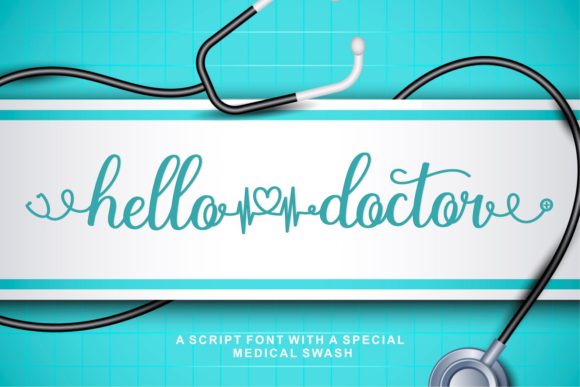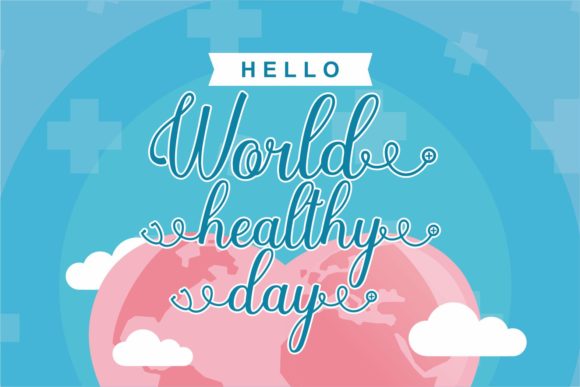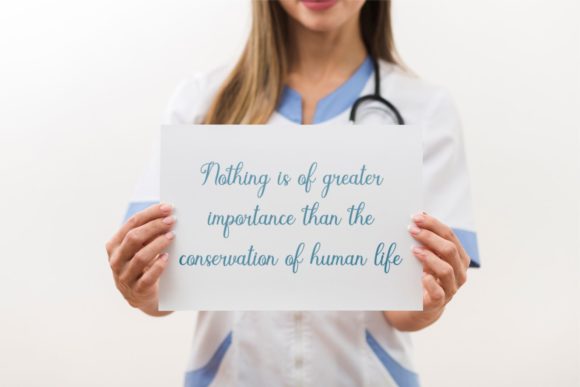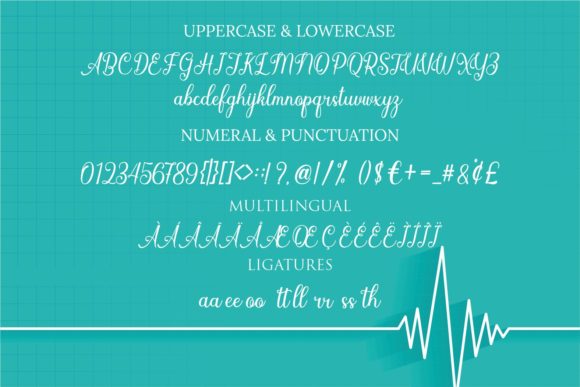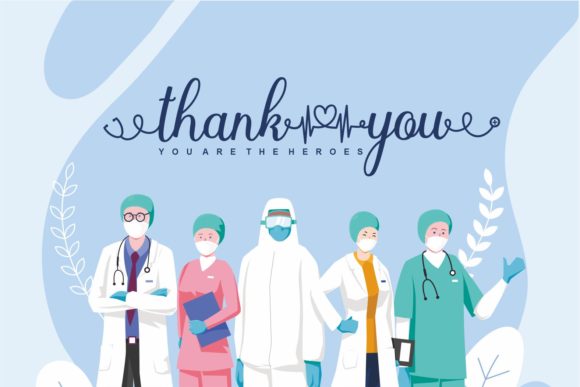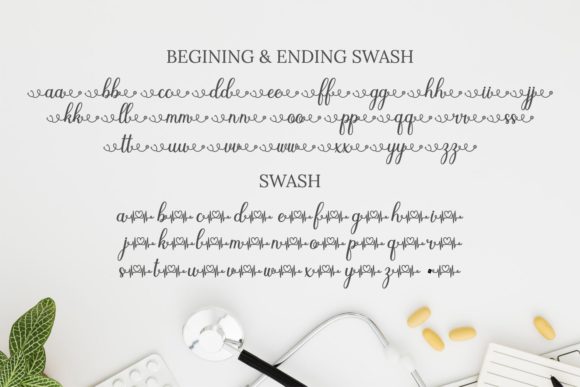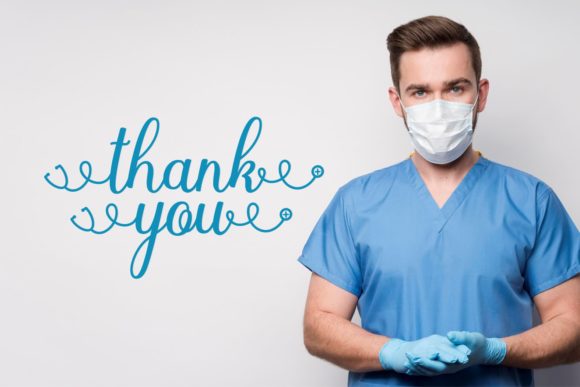
Hello Doctor Font
About Hello Doctor Font
Hello Doctor is a cute handwritten font. This amazing font is perfect for greeting cards, crafting projects, stationery and much more!
This font is PUA encoded which means you can access all of the amazing glyphs and swashes with ease! It also features a wealth of special features including alternate glyphs and ligatures.